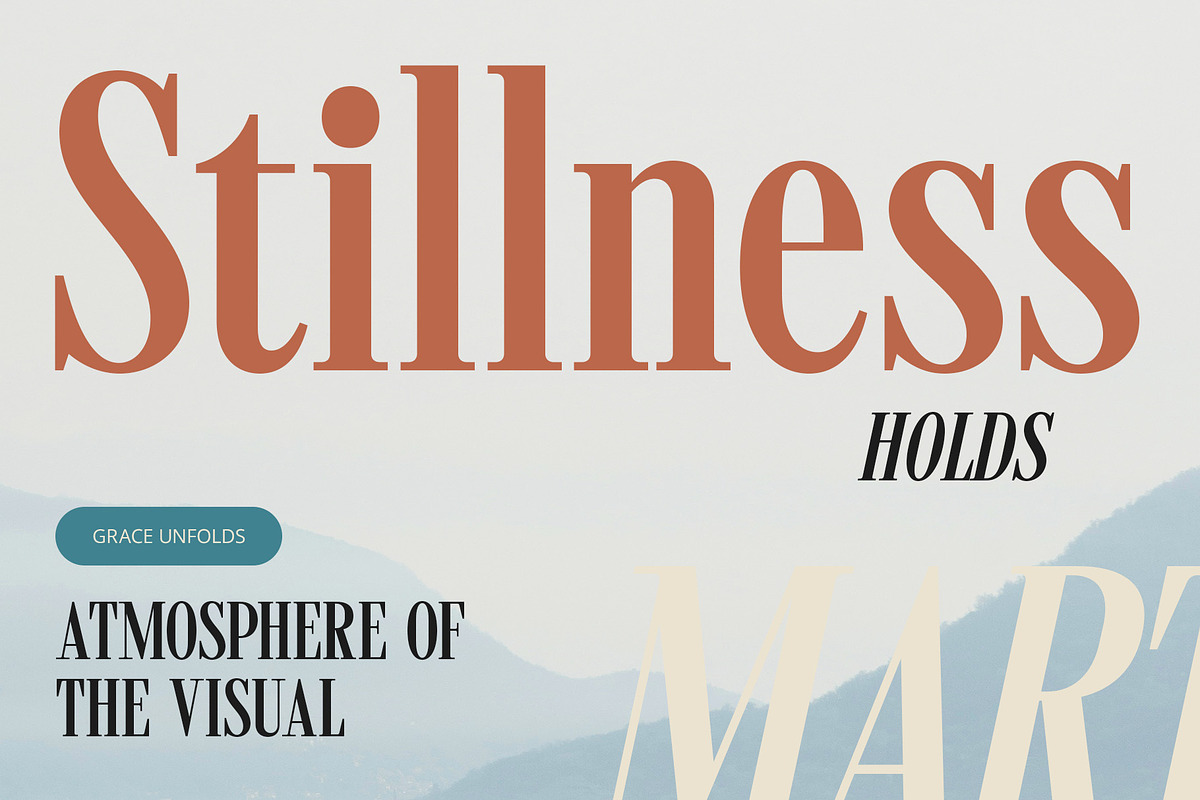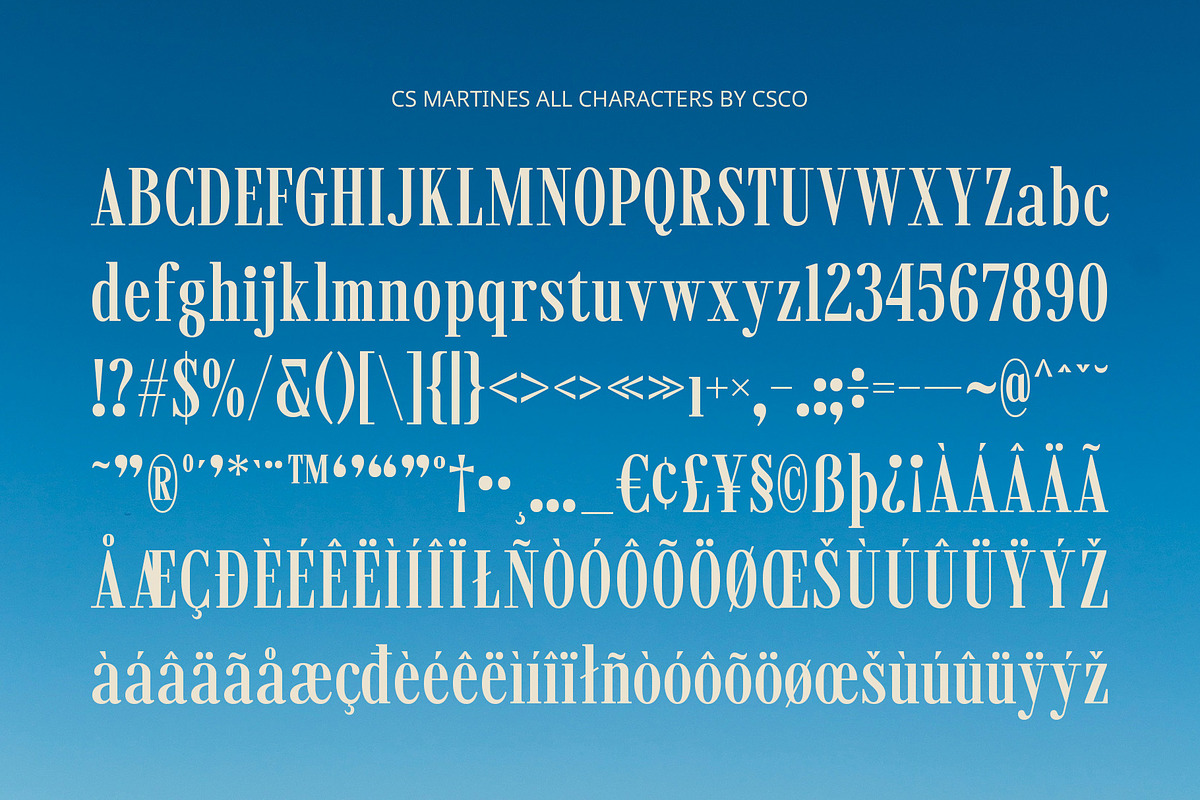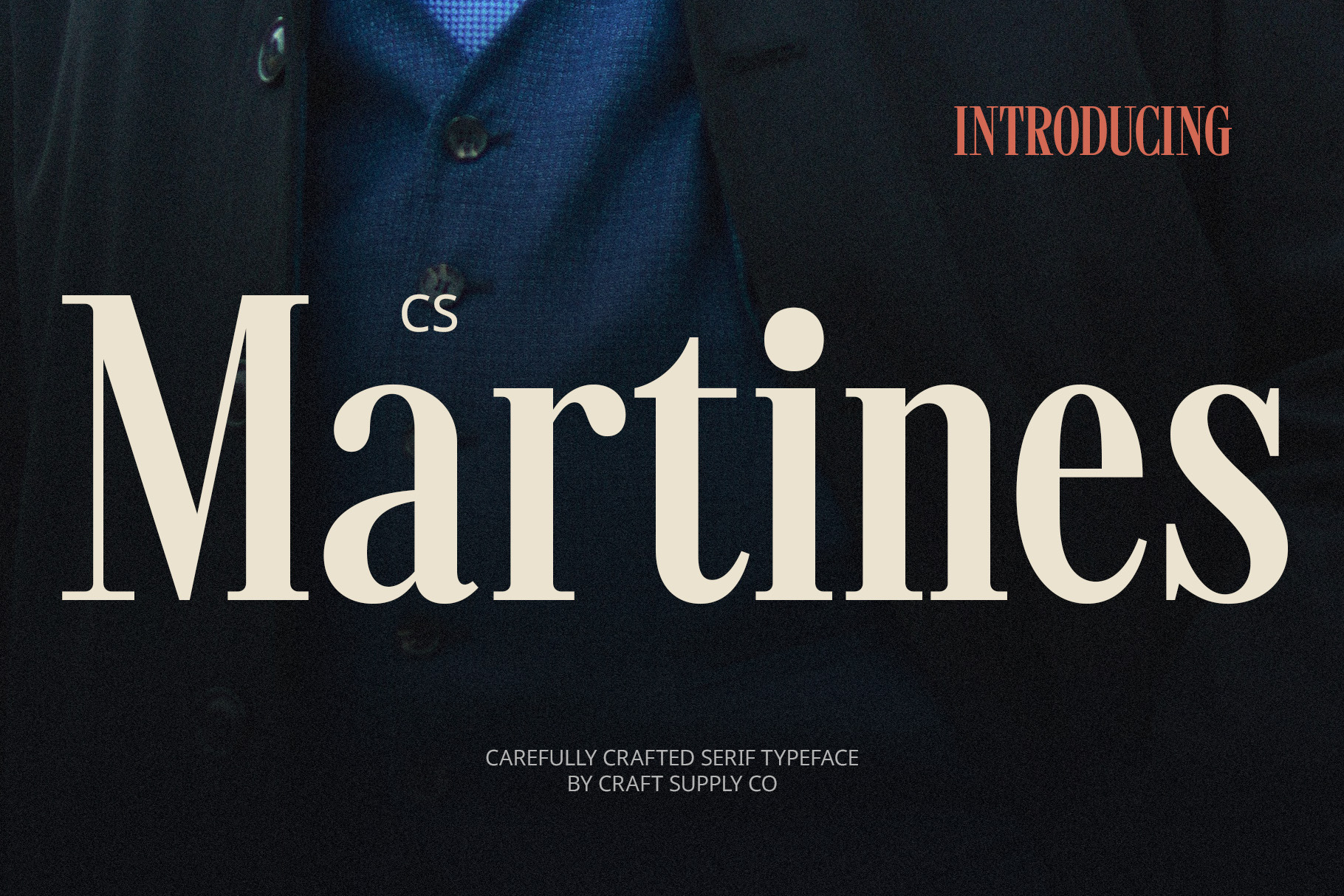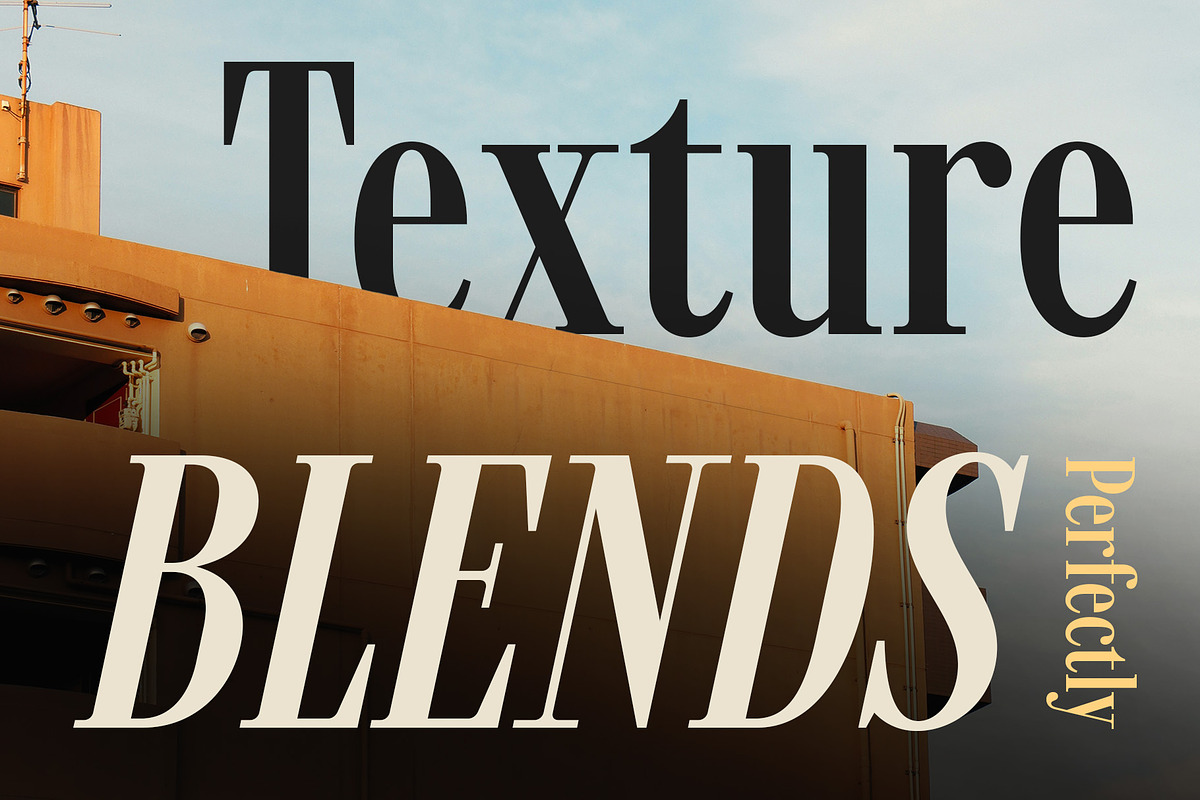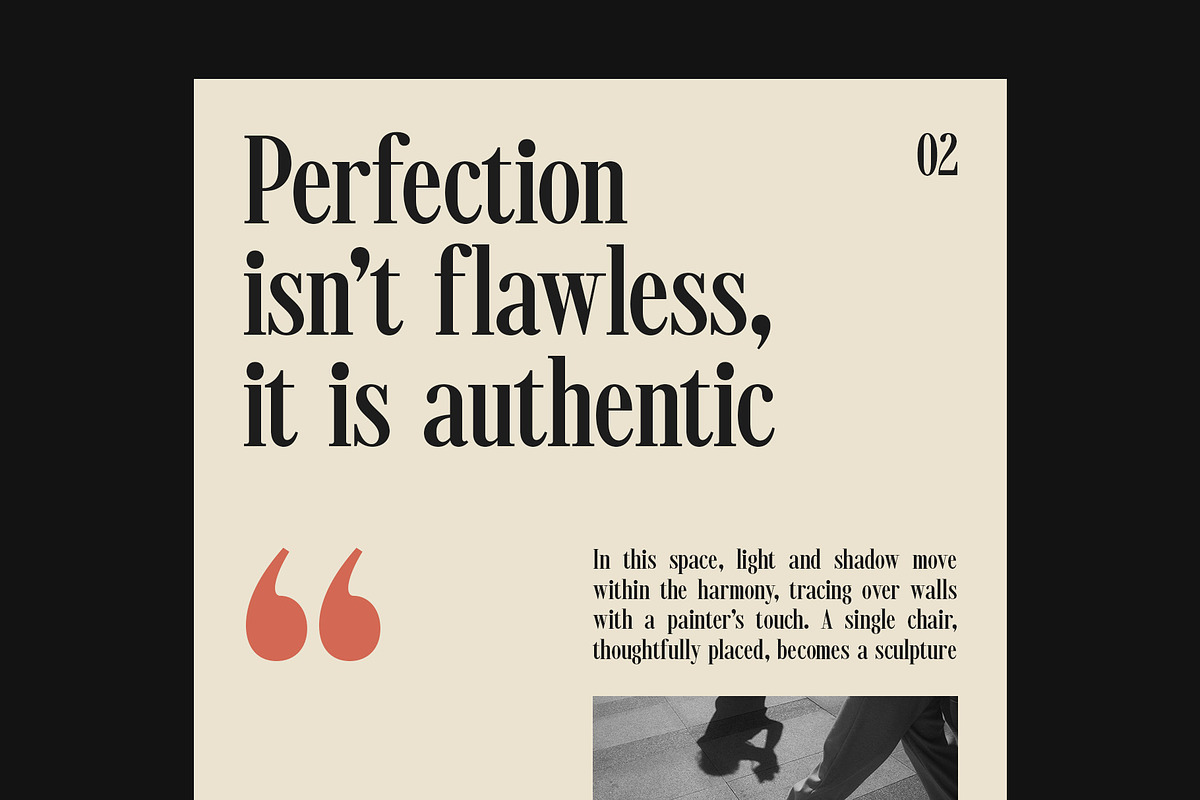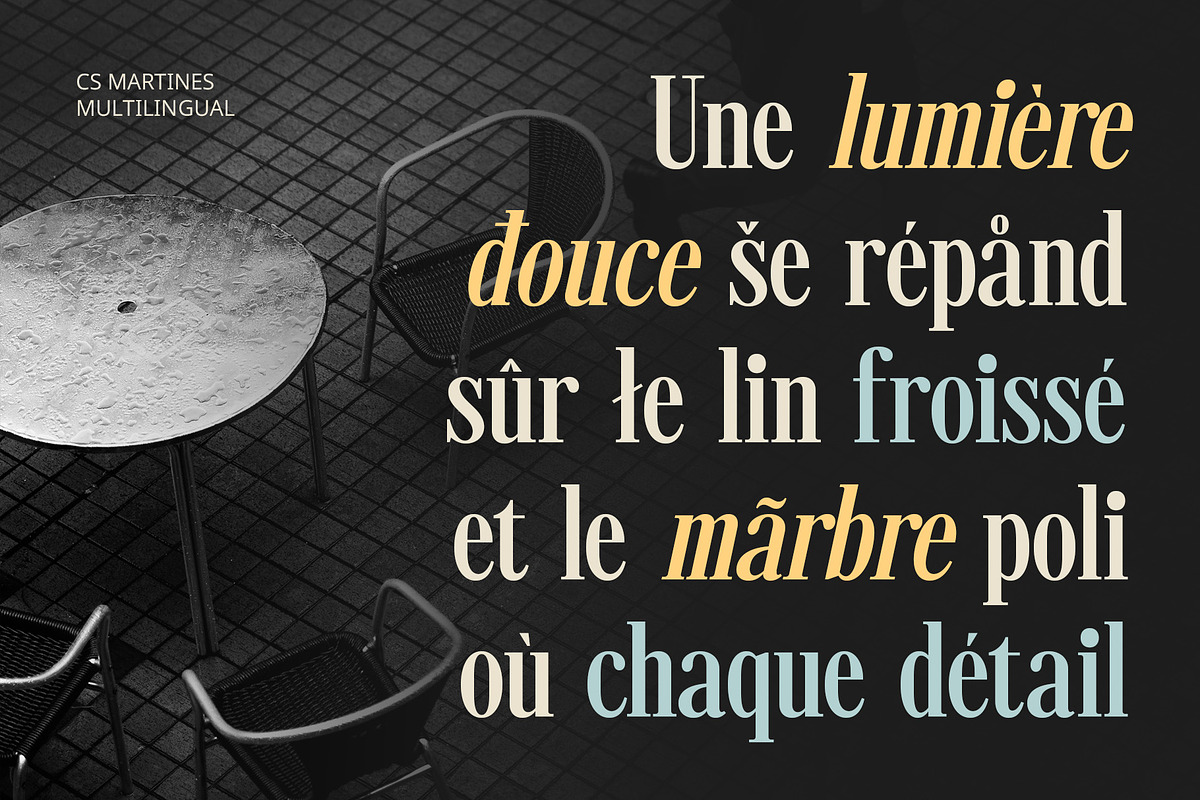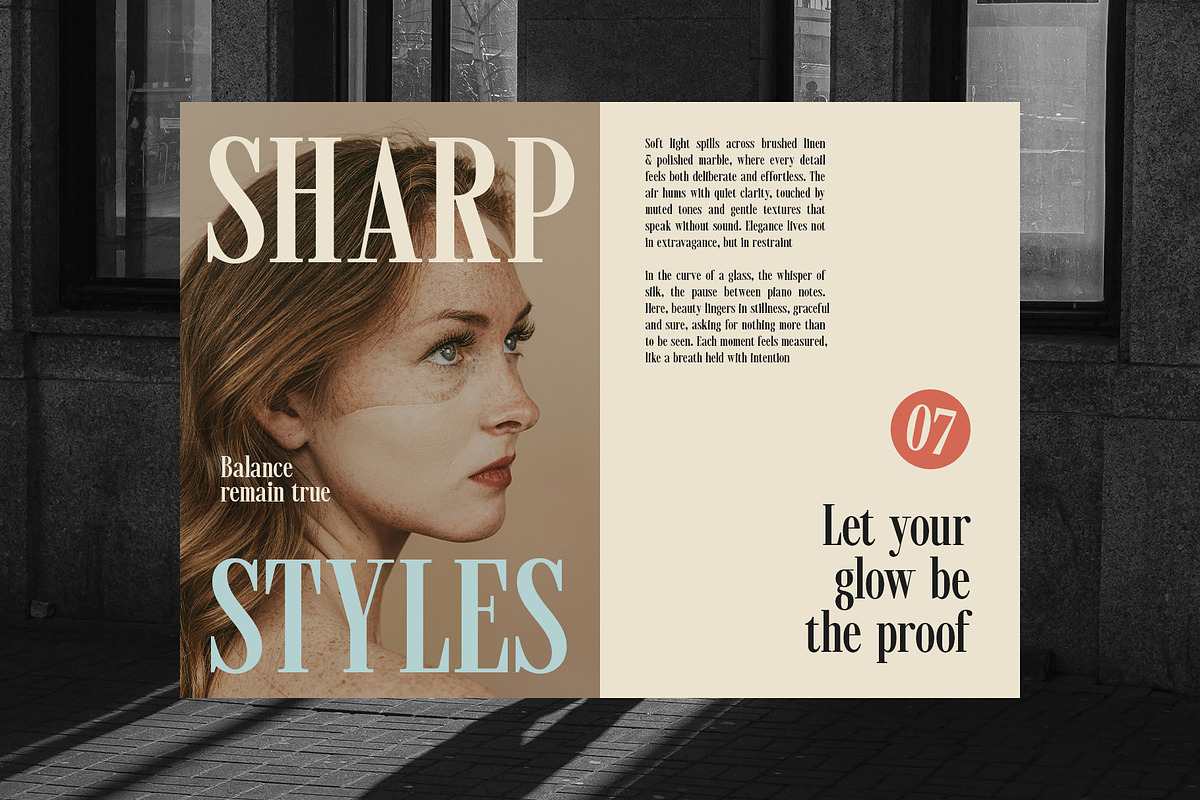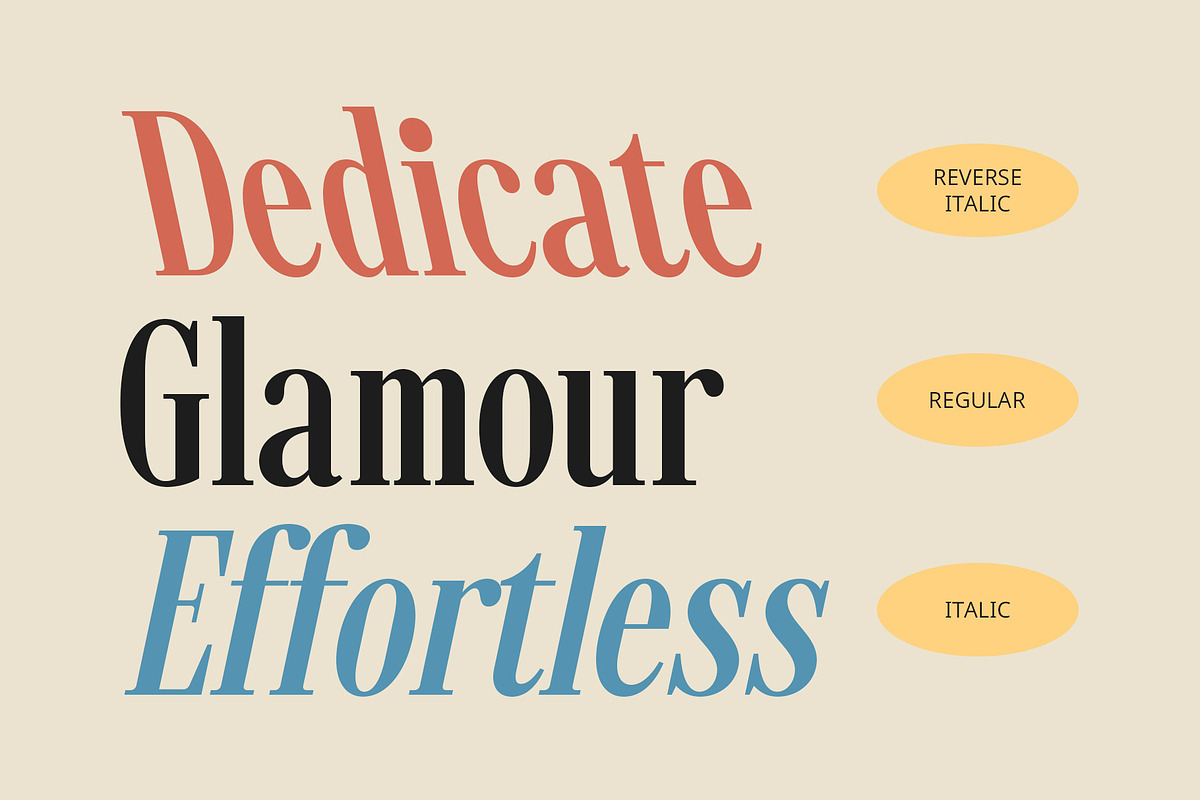
CS Martines – Condensed Font
CS Martines – Condensed Font with Classic Sophistication
Condensed Form with Elegant Utility CS Martines is a modern serif font that features a condensed form designed for efficiency and elegance. Its tall, slim proportions make it space-saving and highly readable, ideal for settings where visual impact and spatial economy are key—such as editorial layouts, book covers, and professional presentations.
Classic Serif Details Meet Contemporary Style While its overall structure leans into modern minimalism, CS Martines retains the refined charm of classic serif typography. Delicate flared serifs and subtle contrasts give it a timeless sophistication, making it suitable for designs that require both heritage and a forward-looking aesthetic. This font was created to elevate the visual identity of high-end brands, publications, and corporate designs.
Refined Proportions for Visual Balance The narrow letterforms ensure a consistent rhythm and elegant flow in text, creating a seamless reading experience even in dense layouts. With its clean lines and structured presence, CS Martines is ideal for design work that demands precision, clarity, and aesthetic harmony.
Timeless and Versatile for Creative Direction From editorial headlines to logo marks, CS Martines adapts effortlessly to various design needs while maintaining a cohesive, premium look. It’s a go-to font for designers who want to communicate a brand’s heritage, authority, and modern sensibility in one cohesive typeface.
- CS Martines Regular
- CS Martines Italic
- CS Martines Reverse Italic